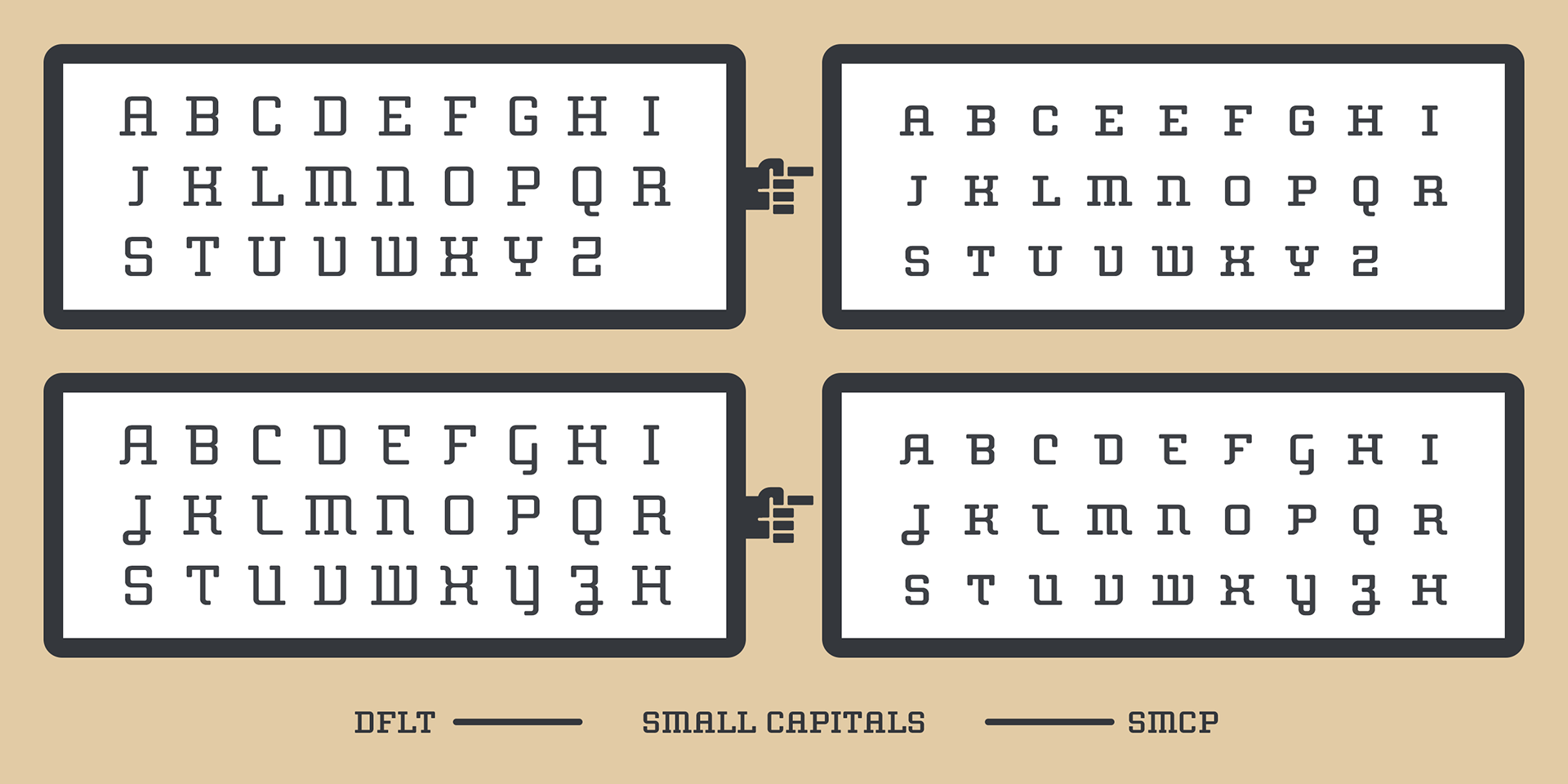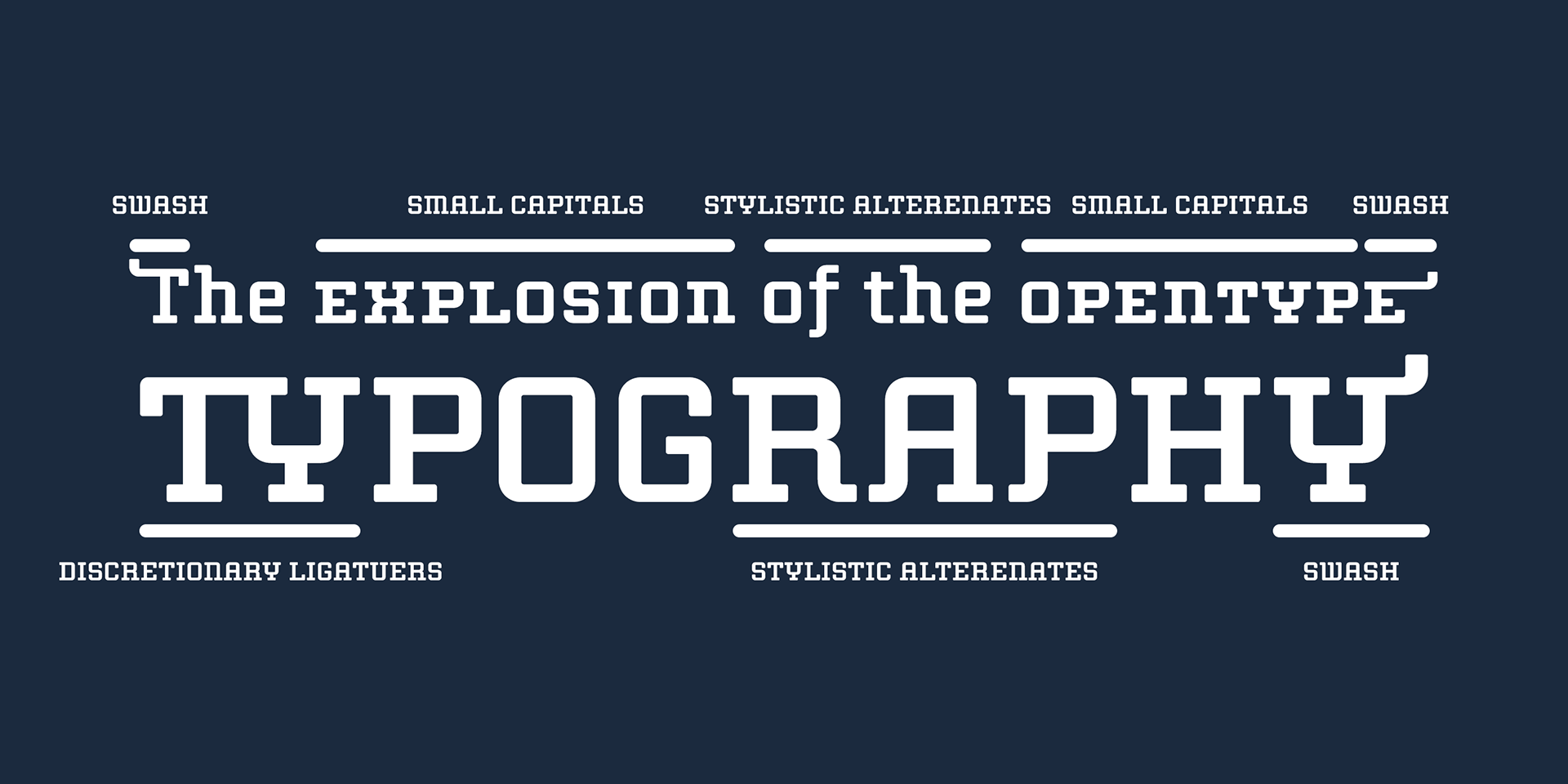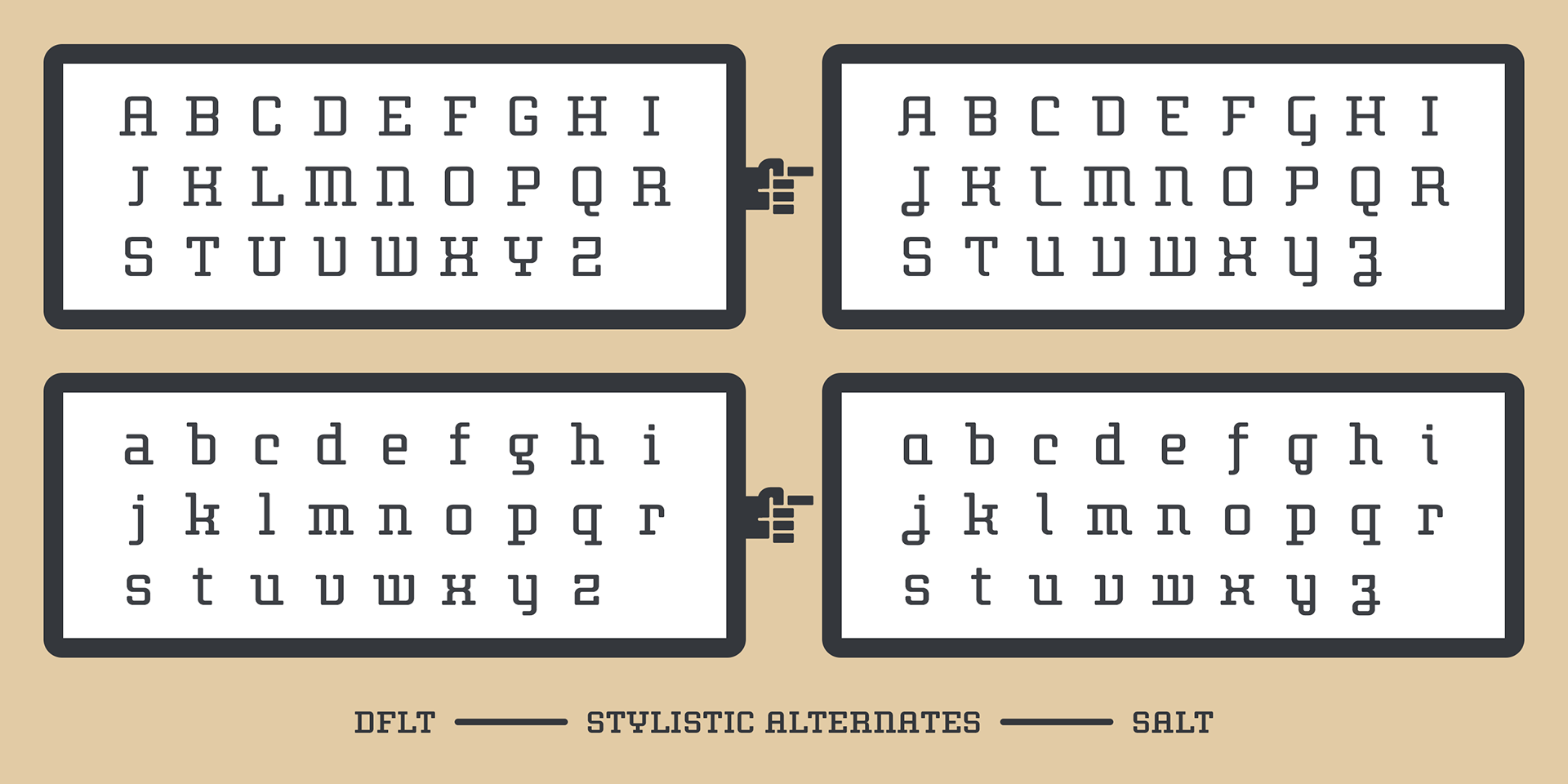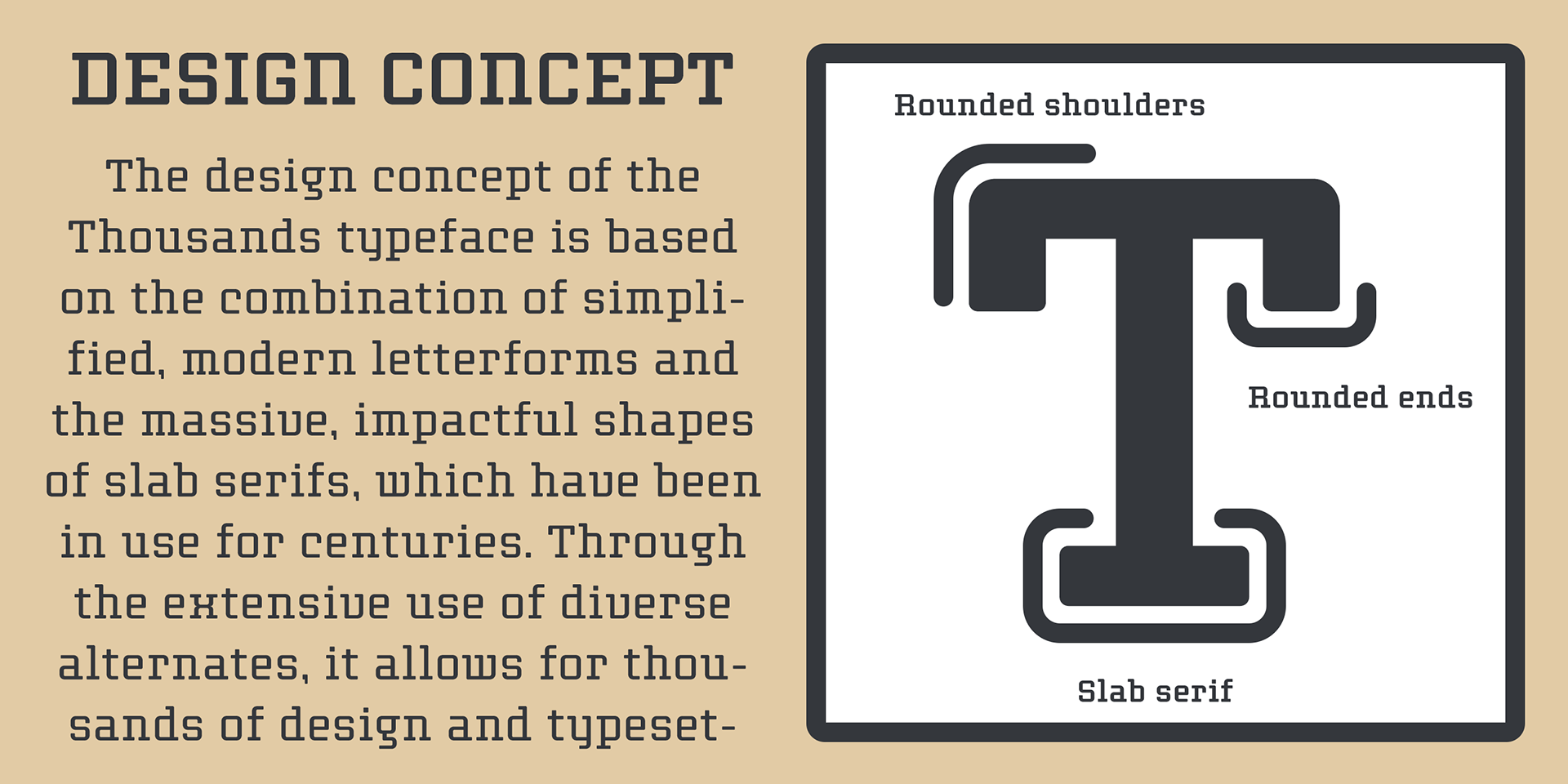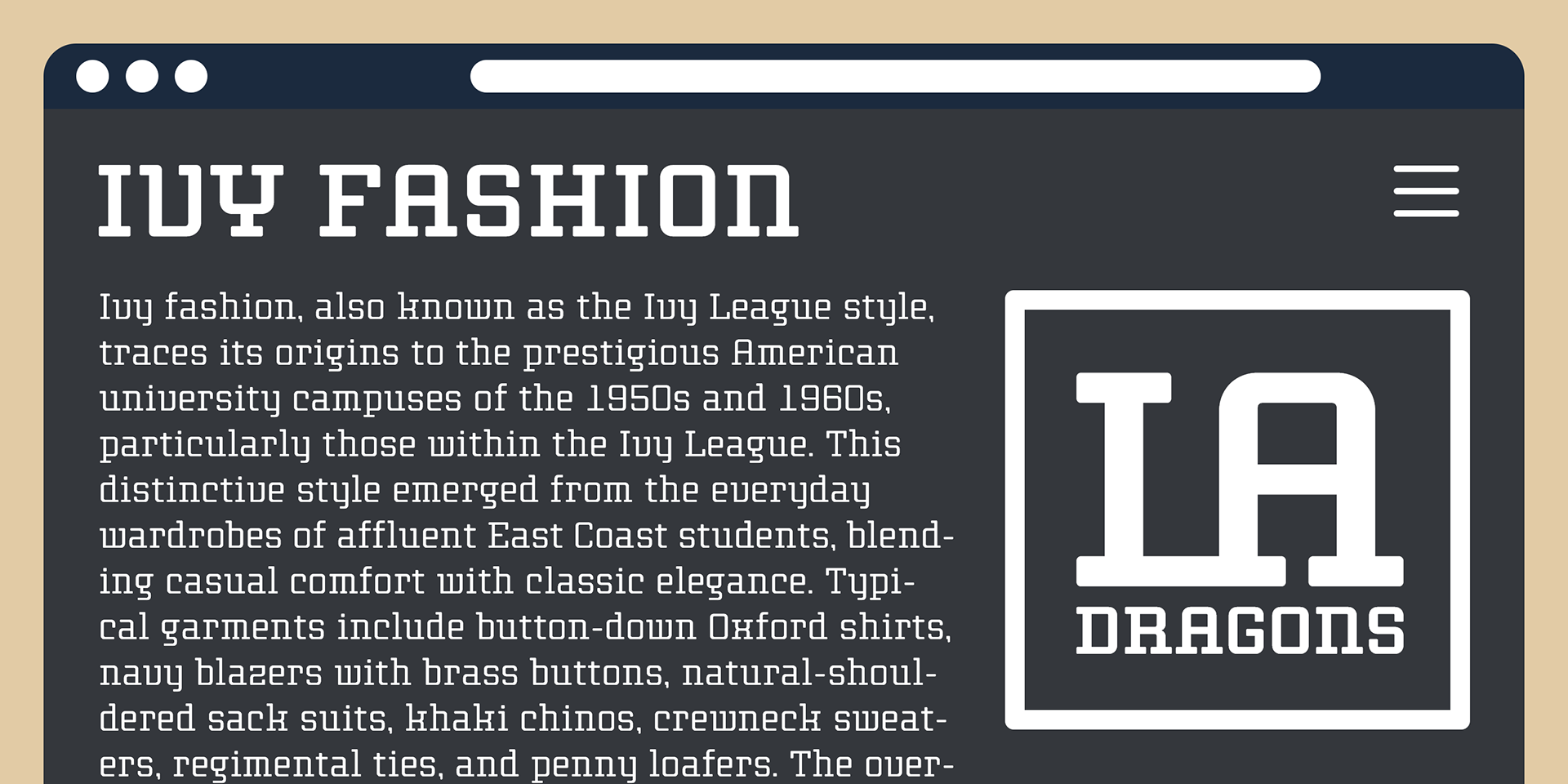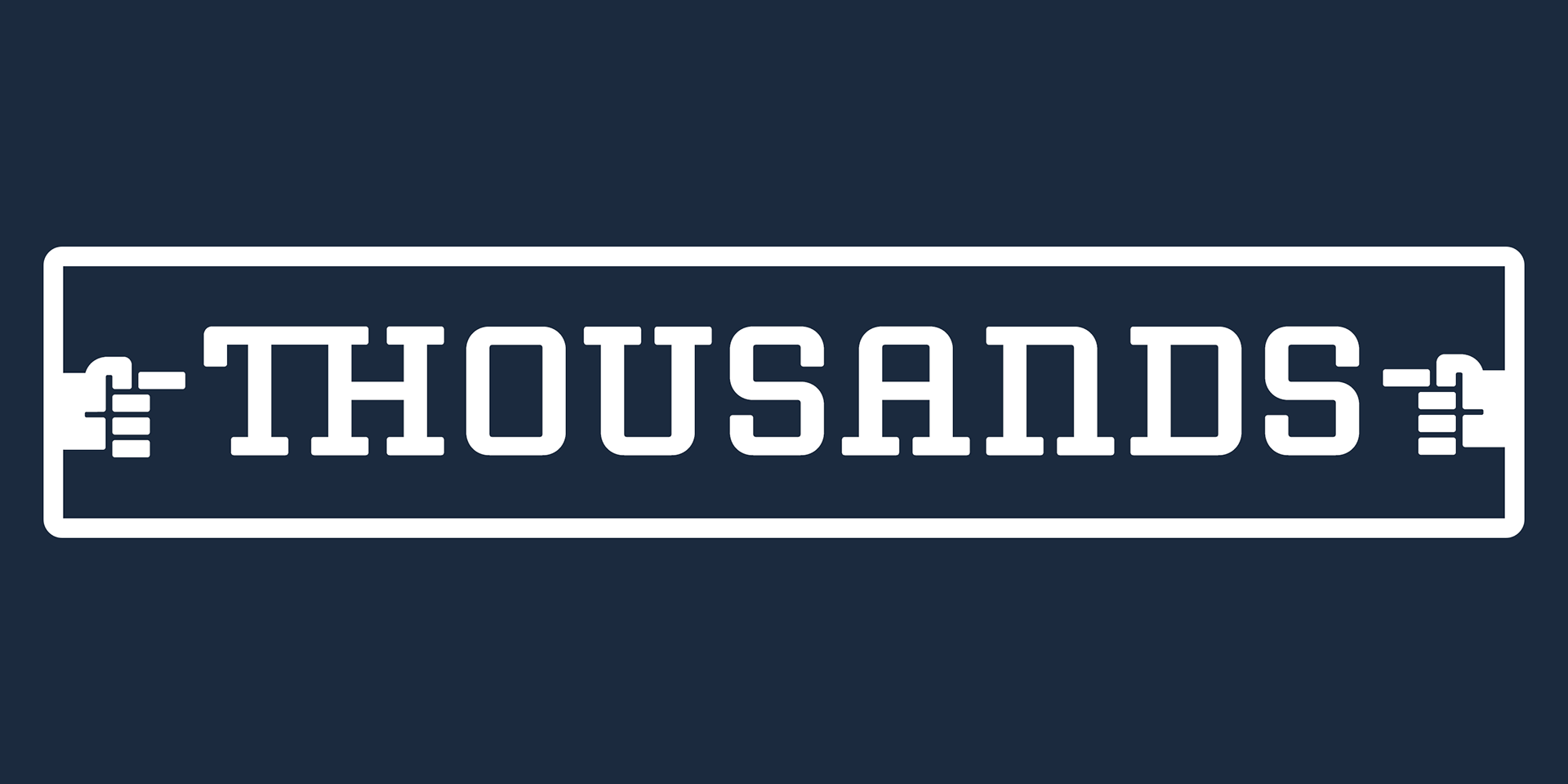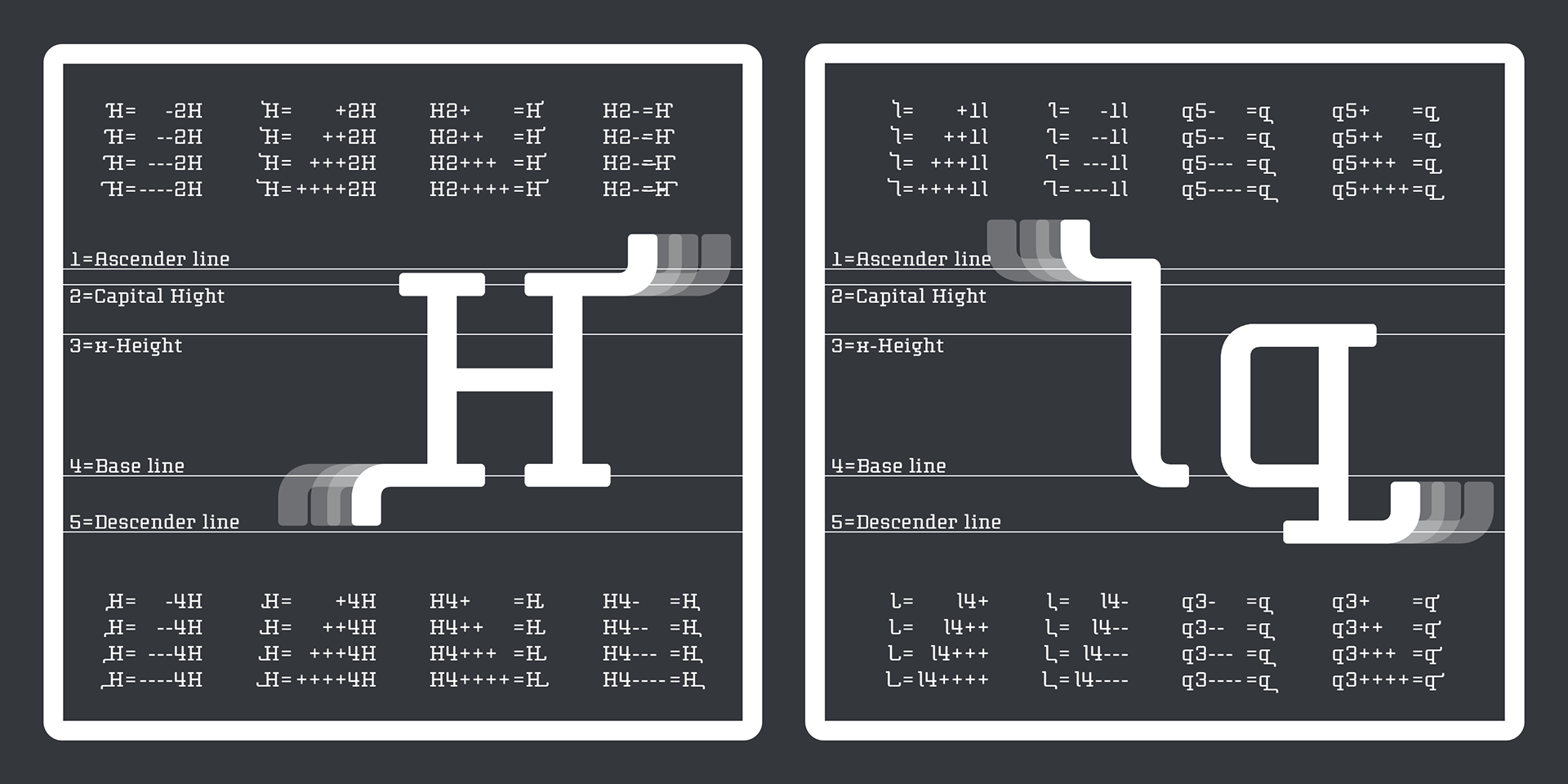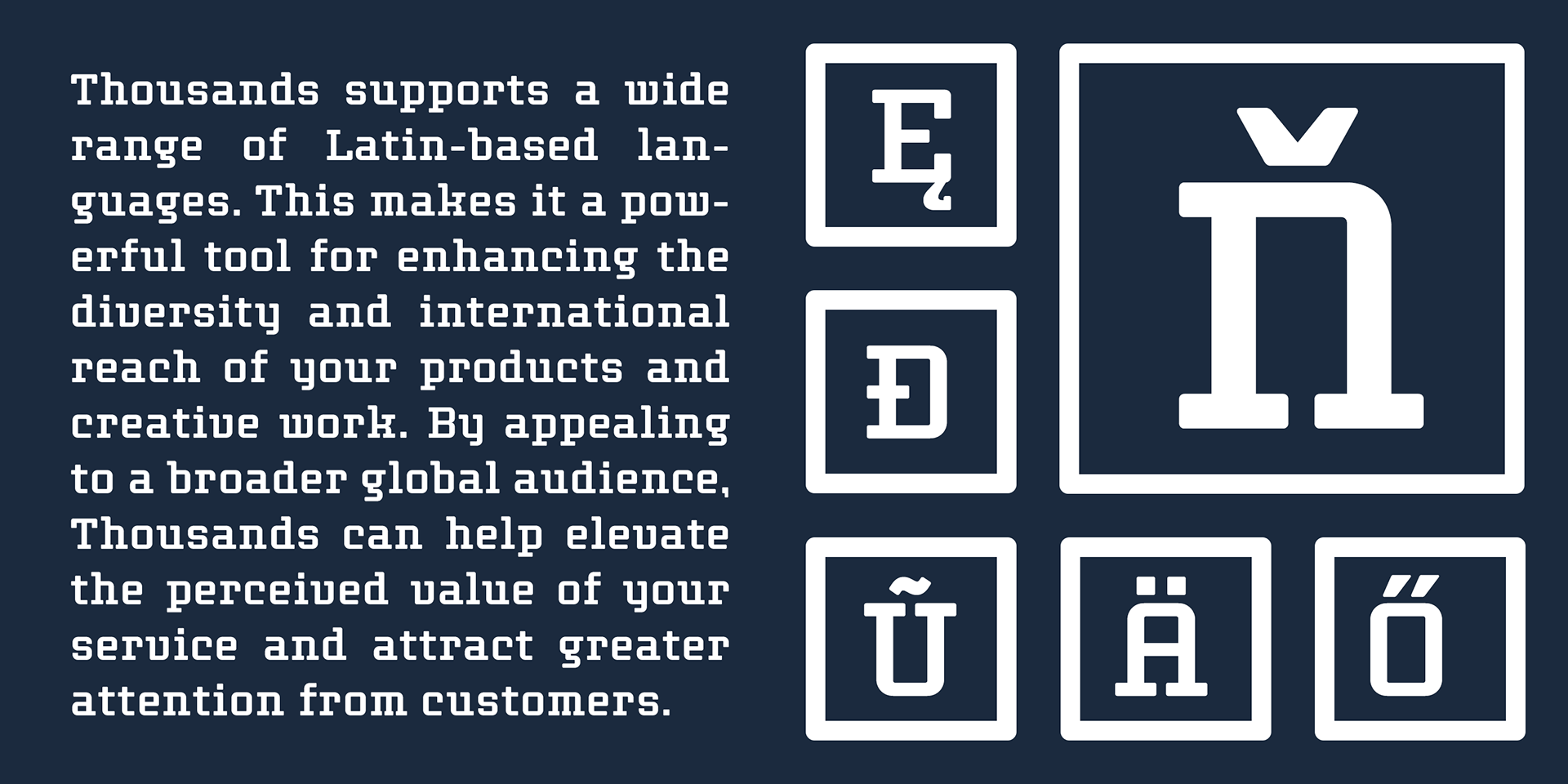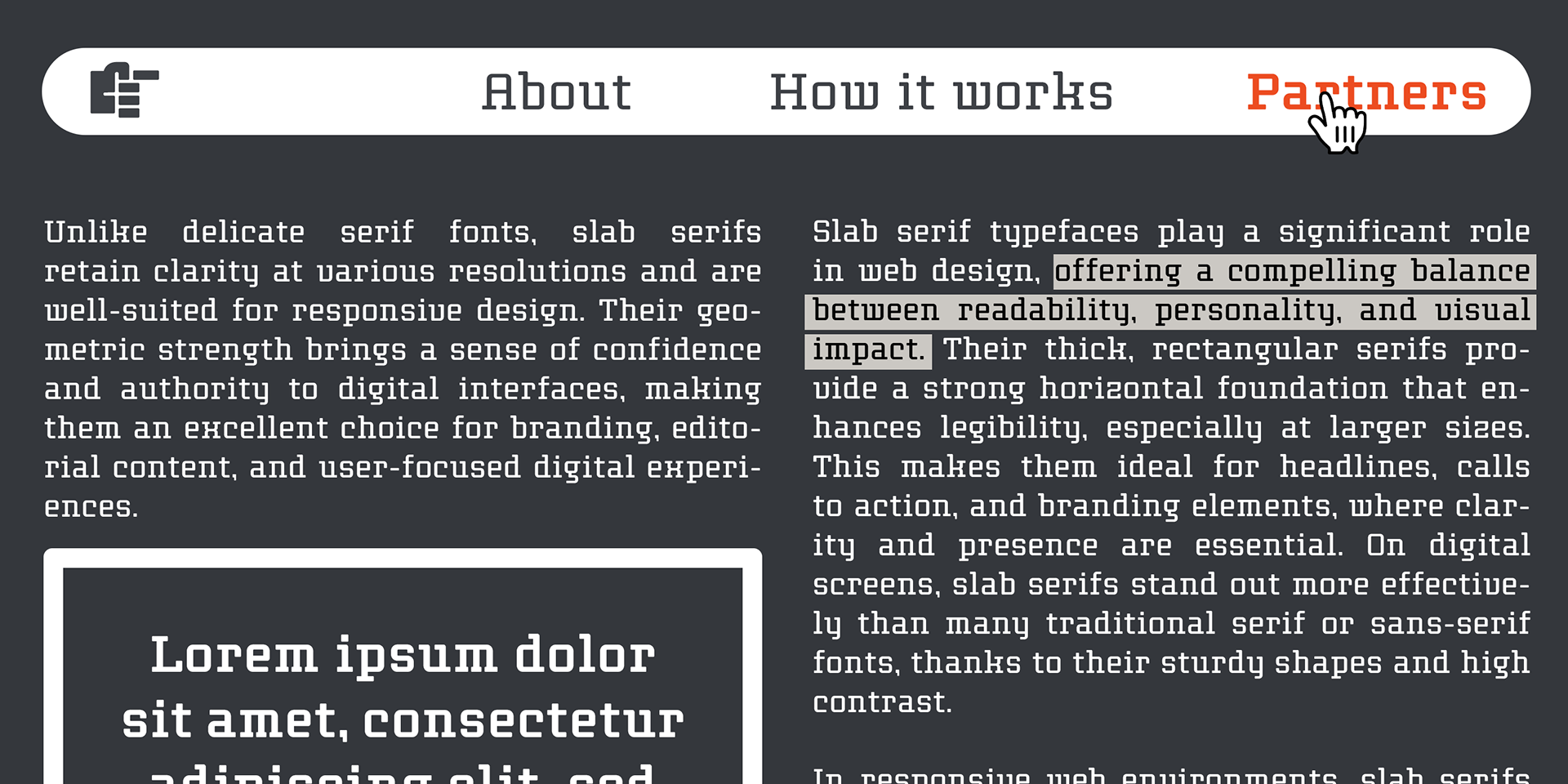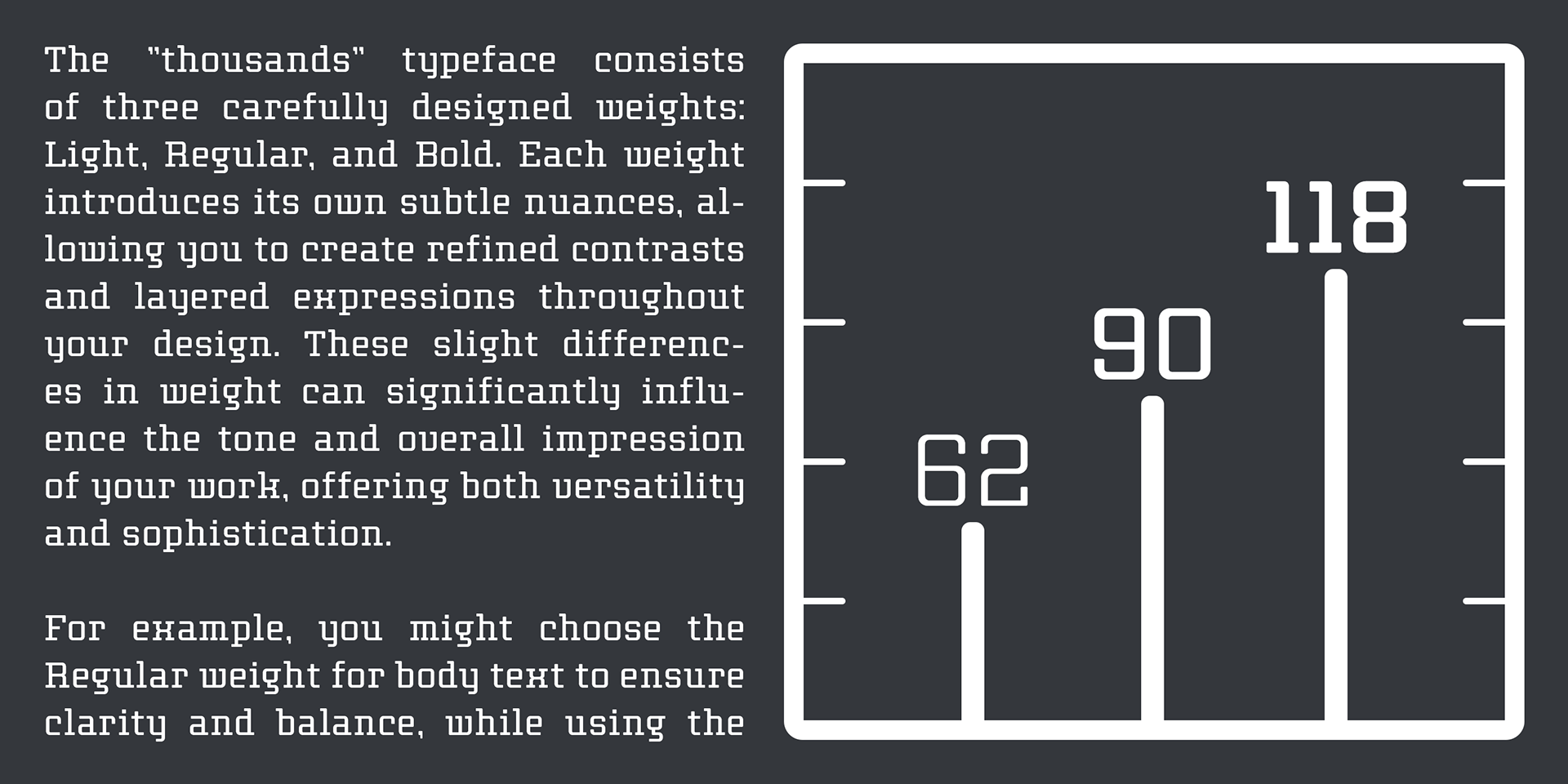
Thousands
This slab serif typeface features an incredibly versatile type system.
As its name suggests, its typographic power grows through the extensive use of OpenType alternates.
Serifs adapt, characters transform into small caps, and ligatures enhance the flow—offering a rich and flexible typographic experience.